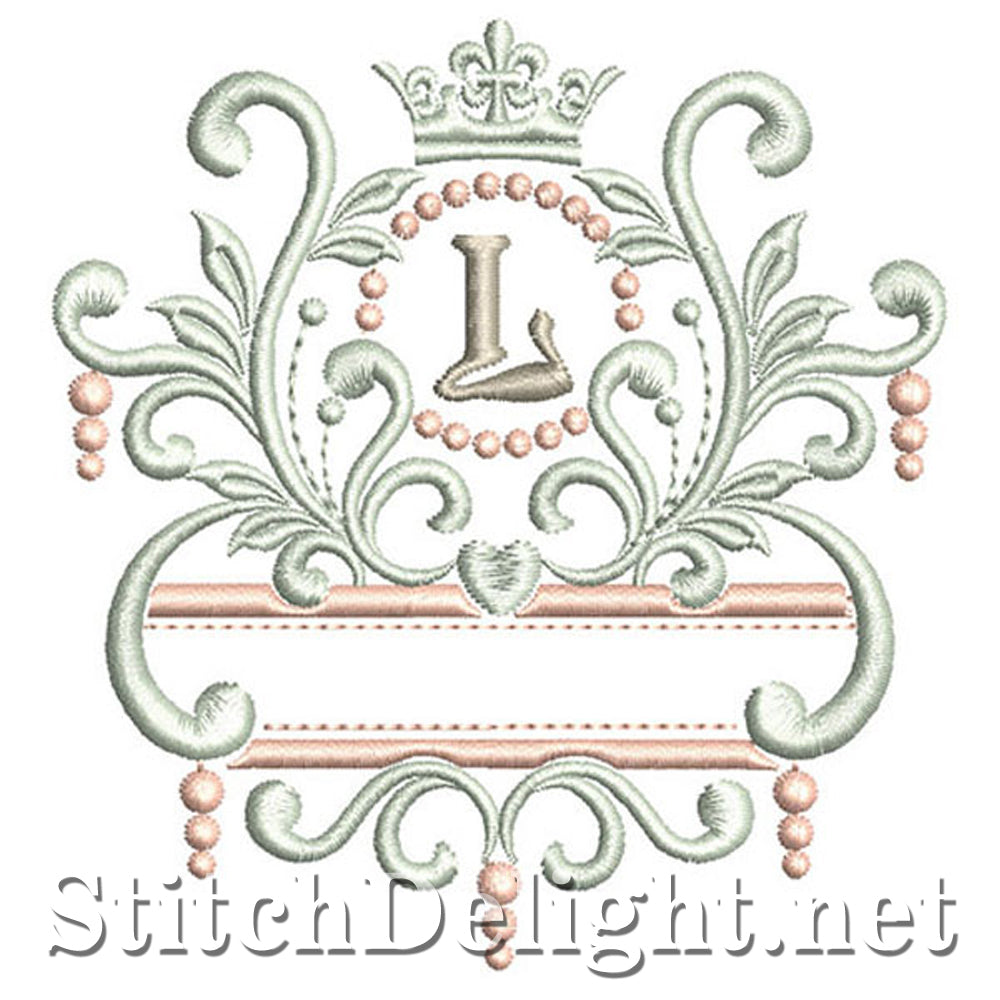
SDS1193 Elegant Royal Font L
Personalize your project with this stylish monogram set (4x4 and 5x7 hoop sizes included as well as BX version for Embrilliance software - you can add the name to match the initial as seen in the photo using SDS1194 (Tiny Arial Font)